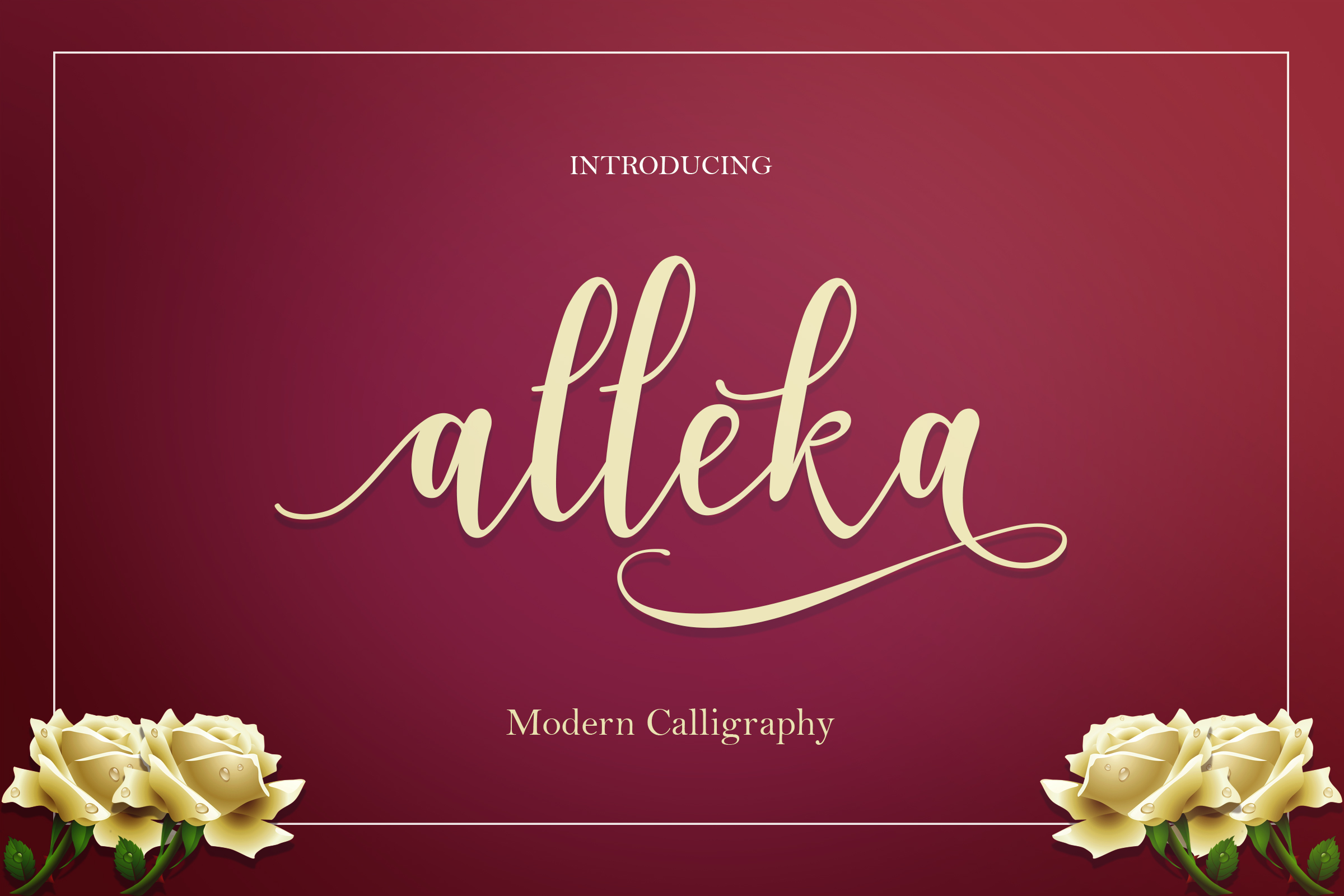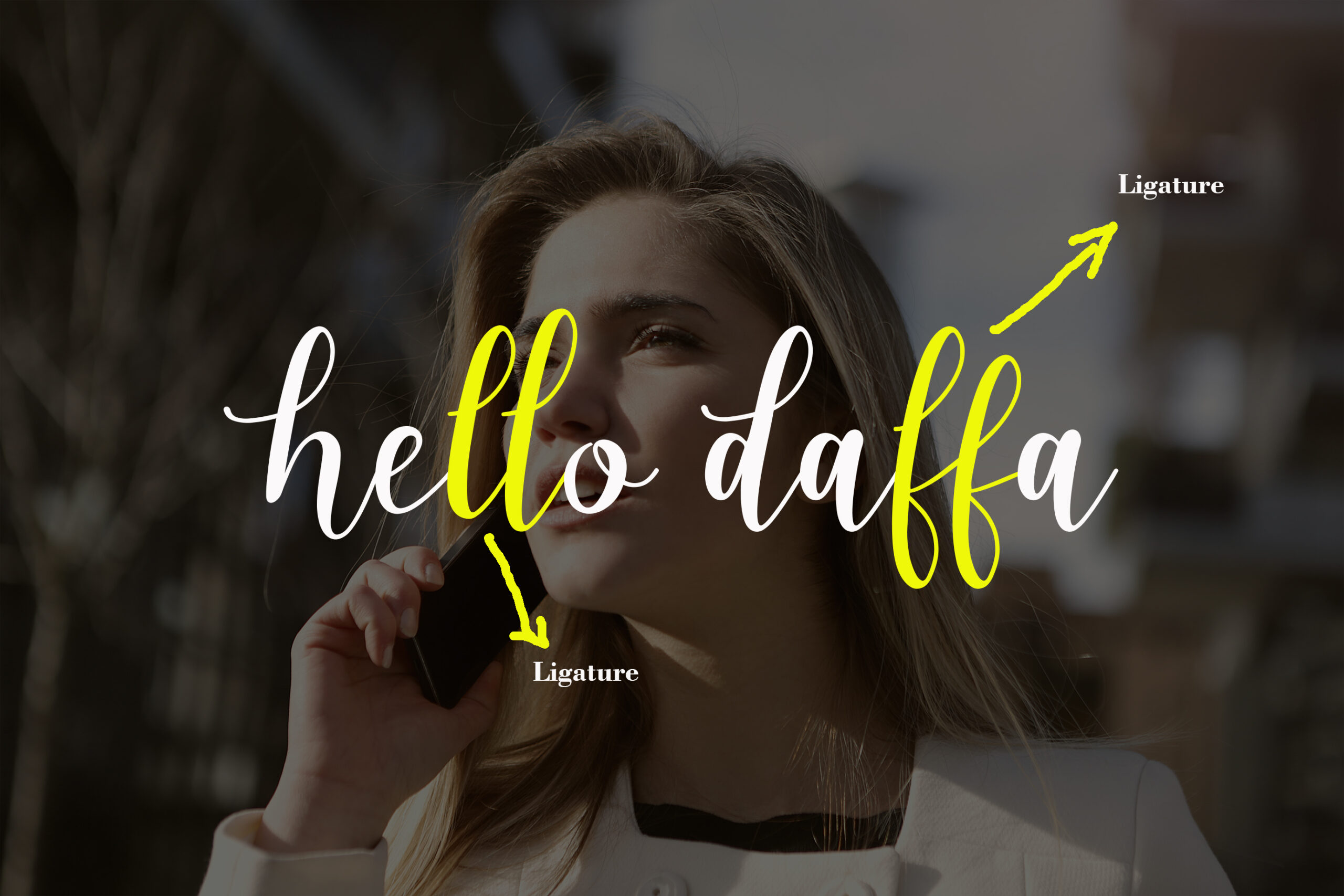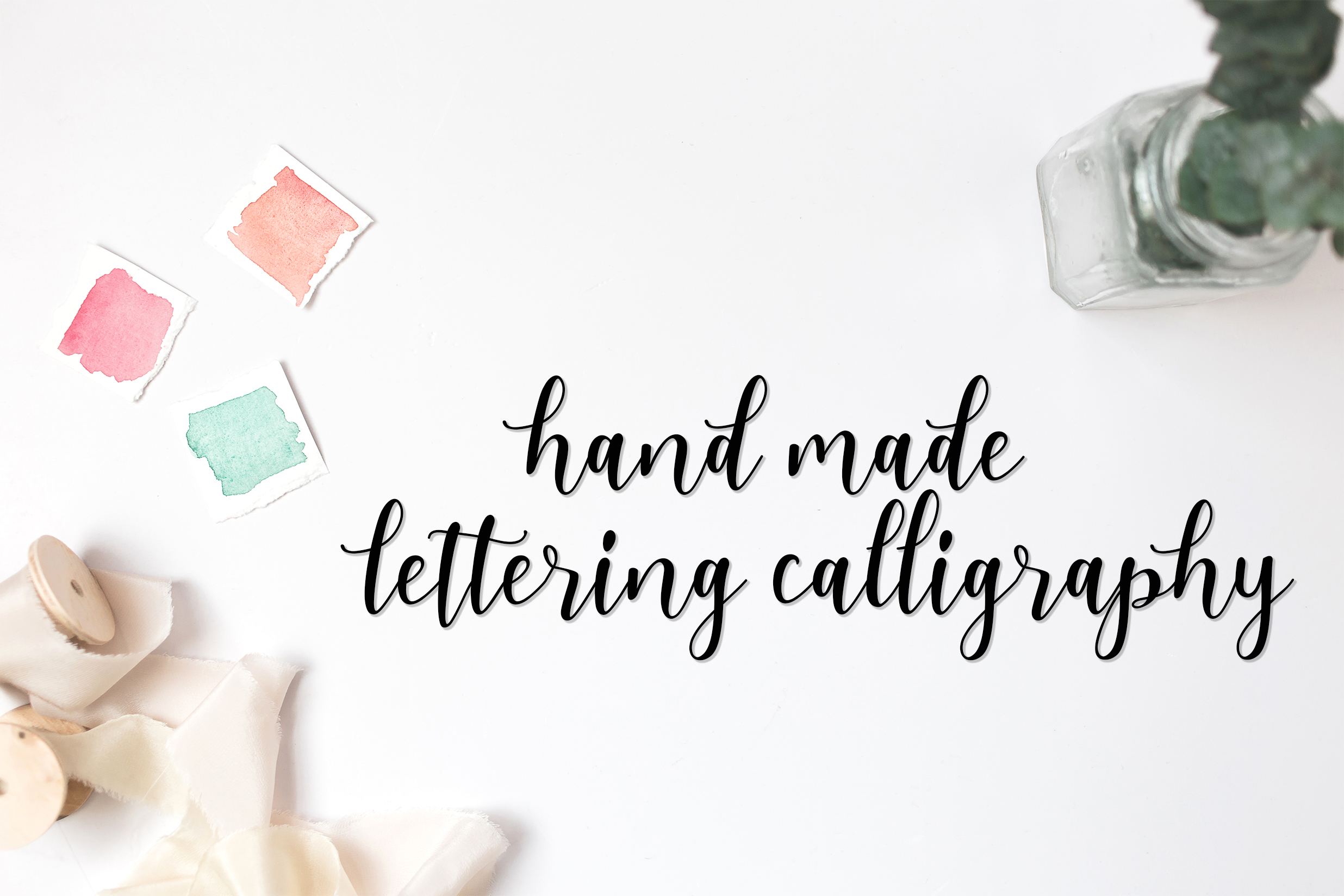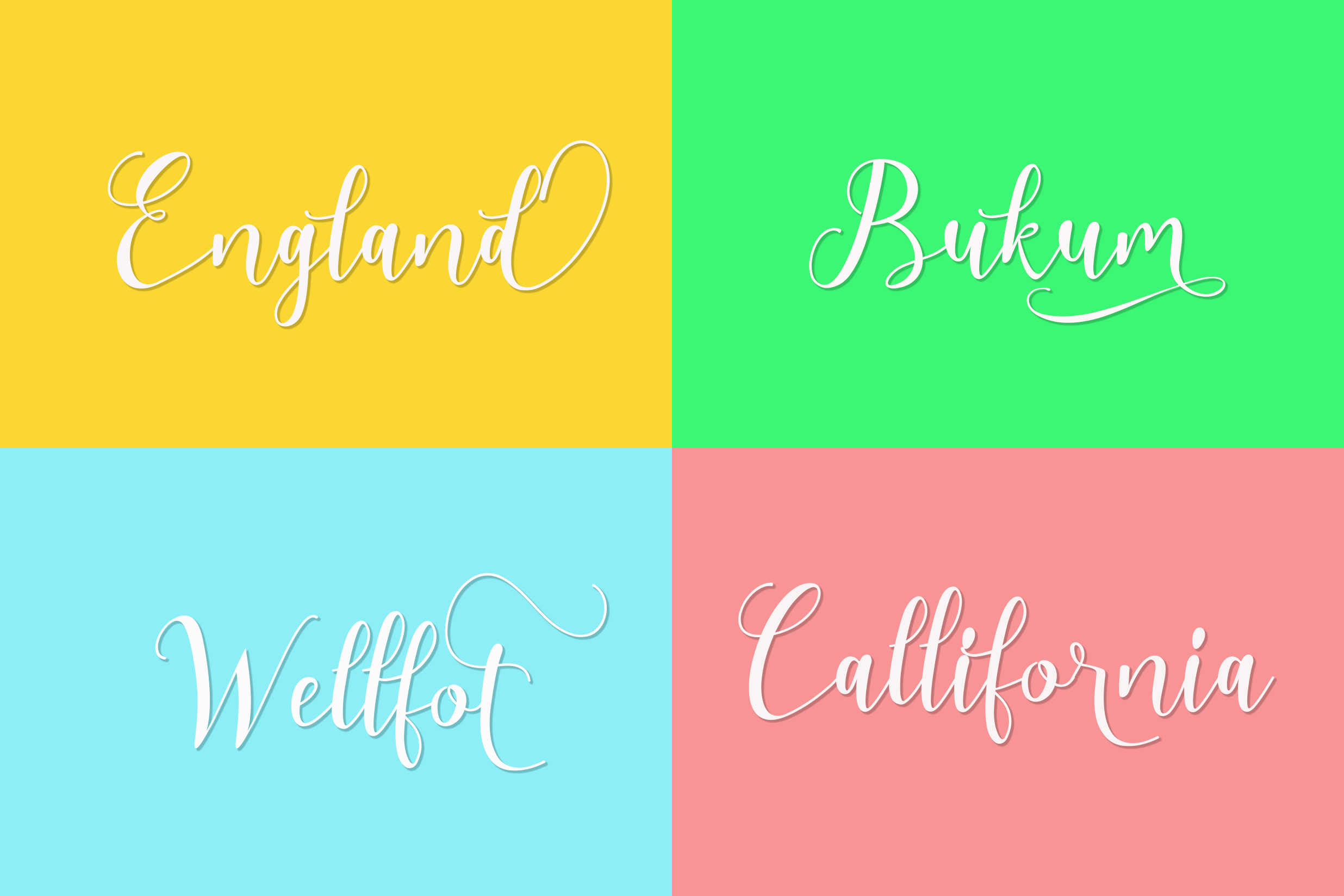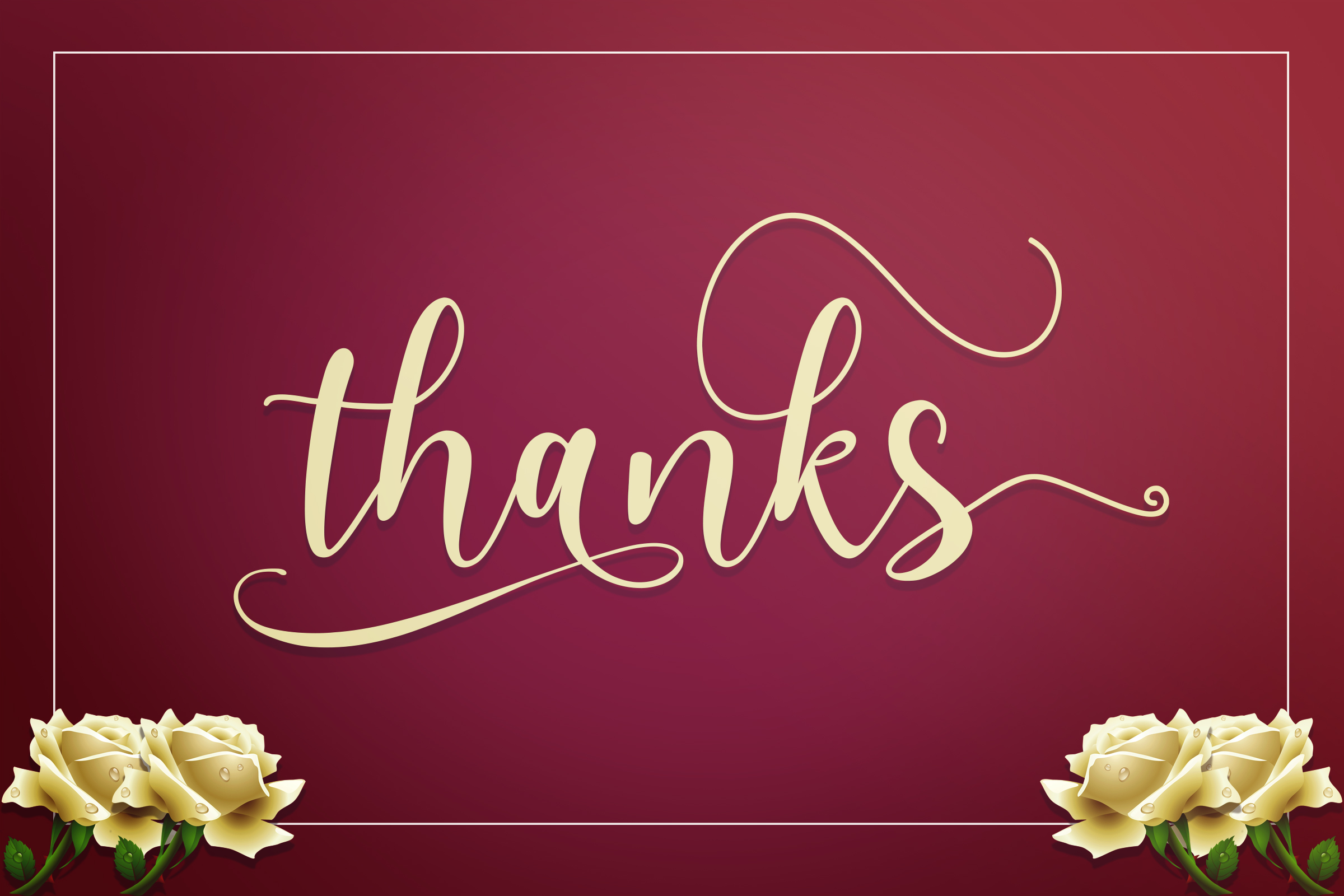
Alleka Script Font
Alleka script is a unique font script that hovers between traditional classic and modern characters.
Each and every letter has been carefully drafted, so it looks natural and clean in all designs. It features a large range of swashes.